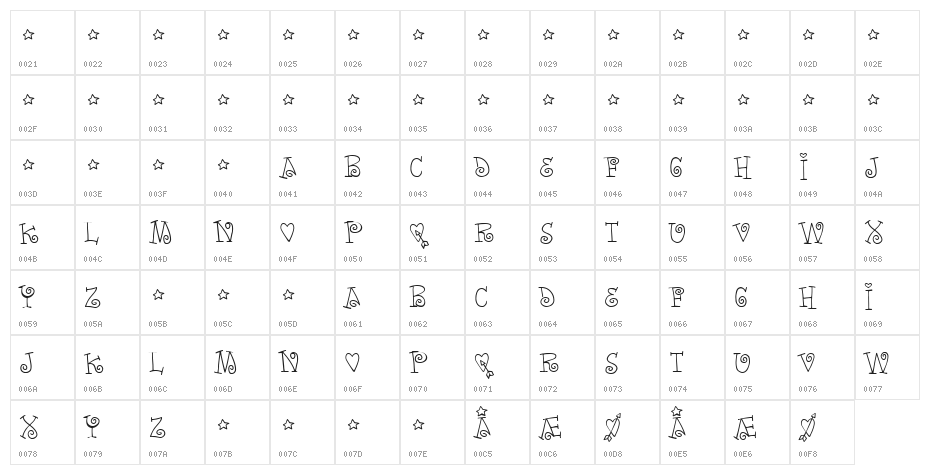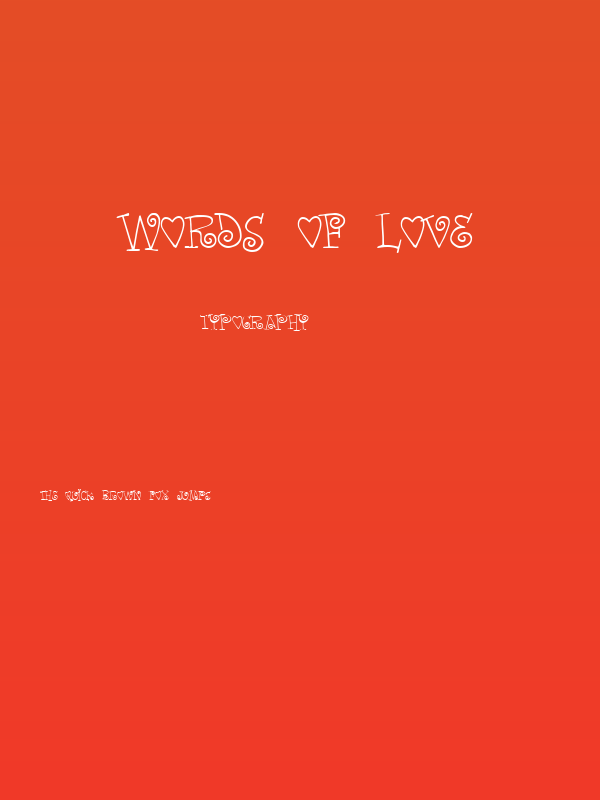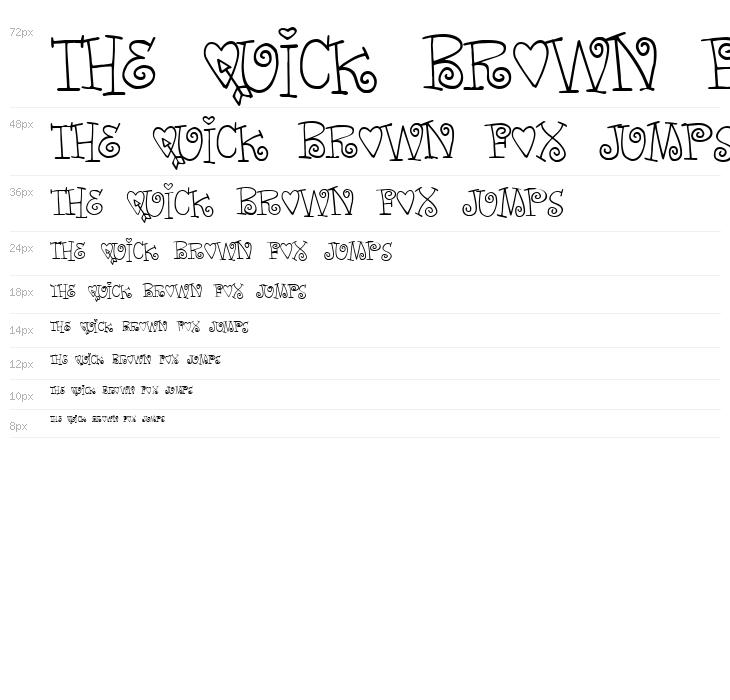
Words of love Font
Words of love Description
This playful and whimsical font features a unique blend of decorative elements and playful curves. Each letter is adorned with charming details, such as hearts and swirls, giving it a romantic and fun appearance. The uppercase and lowercase letters maintain a consistent style, with the uppercase being slightly more elaborate. The font's overall look is lively and engaging, making it perfect for projects that require a touch of whimsy and charm. The characters are well-spaced, ensuring readability while maintaining their decorative appeal.
| Proposed Projects | Ideal for greeting cards, wedding invitations, playful branding, and children's book covers. |